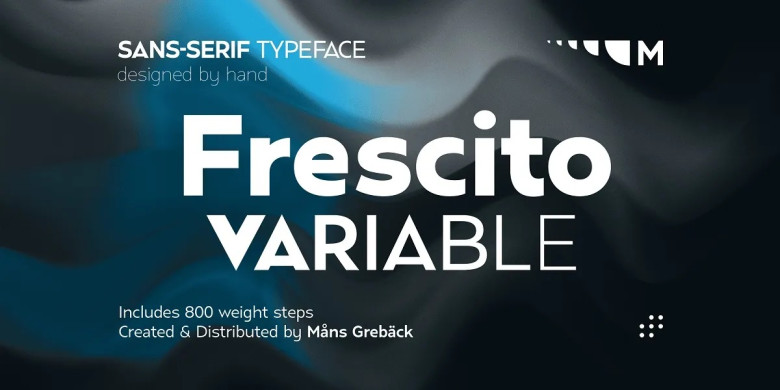
Frescito Font
frescito represents an urban, fresh and cool aesthetic in its clear monoline design that makes it suitable for advertising and branding in digital and editorial design. Frescito comes in five classic weights such as Thin, Light and Medium as well as its Variable Font feature for maximum customization and flexibility, plus Italics!
Mans Greback was inspired by the vibrant city, its energy and spirit to design a font that would stand out in an otherwise vibrant moment; one which could be used with both traditional merchandise as well as contemporary products – one with both an upbeat feel as well as timeless appeal. Mans created Variable Font!
Frescito Sans Serif Font